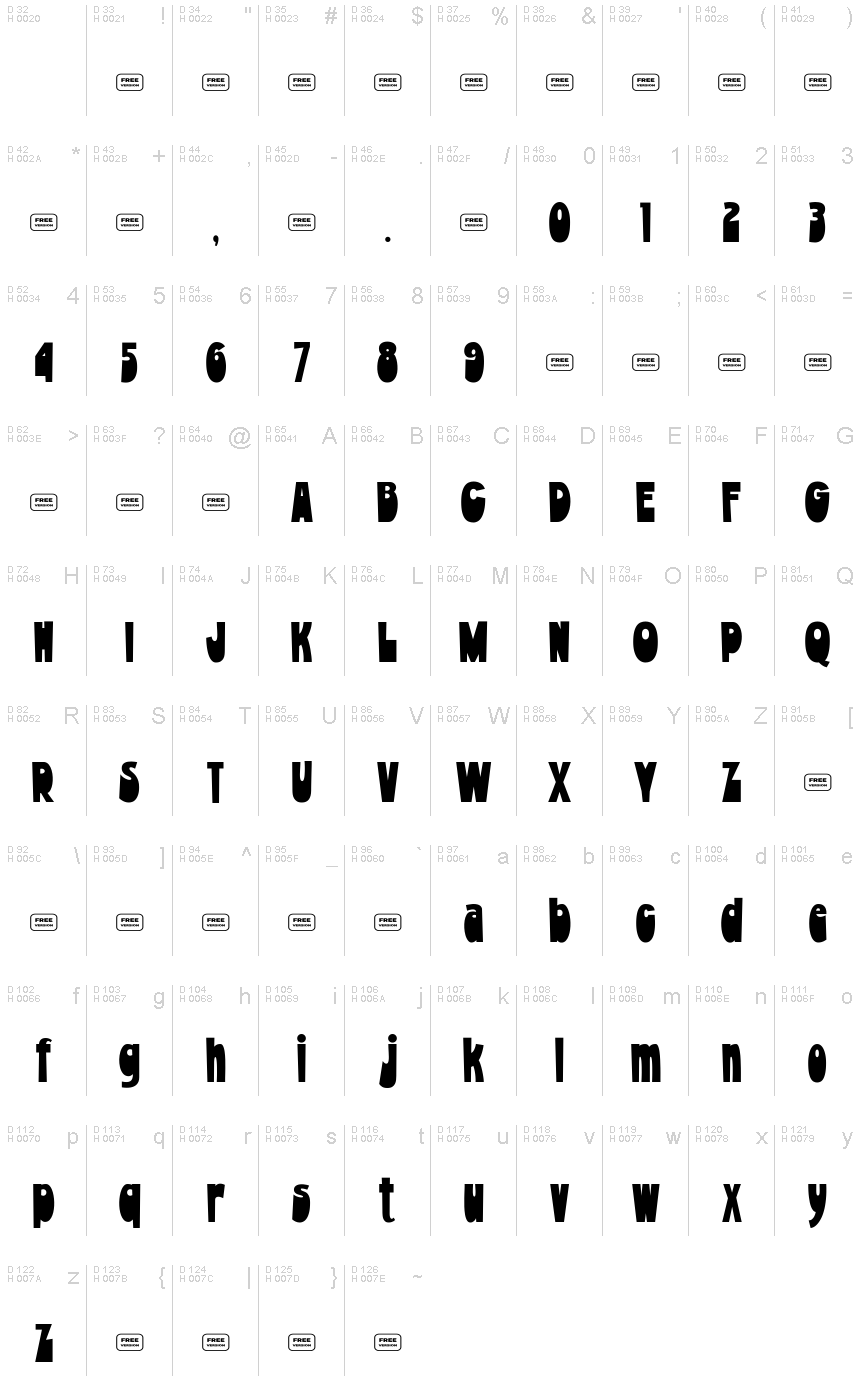
Pearson, a bold and captivating display font crafted by Typefactoryco, exudes a delightful, whimsical charm. This condensed, yet impactful typeface commands attention with its distinctive, cartoon-inspired flourishes and tall, striking silhouette. Pearson's casual elegance radiates a sense of down-to-earth approachability, making it a versatile choice for a wide range of design projects.
Pearson's exceptional readability and versatility make it a standout option for eye-catching headlines, logo designs, and creative branding. Its bold, condensed form lends itself seamlessly to busy backgrounds, allowing the font to shine as a focal point or integrate harmoniously within vibrant, dynamic compositions.